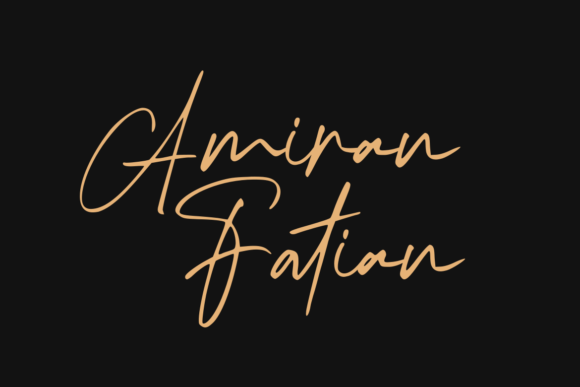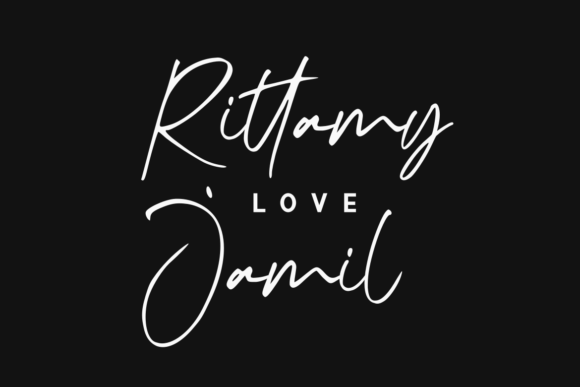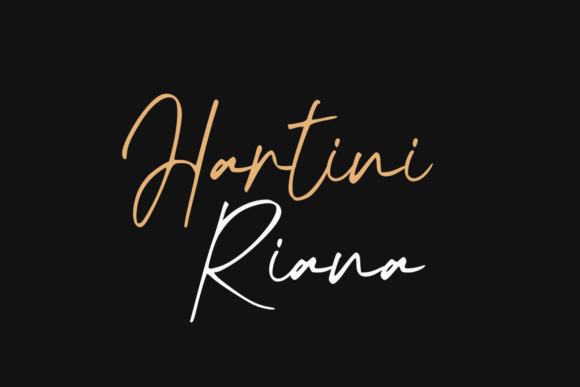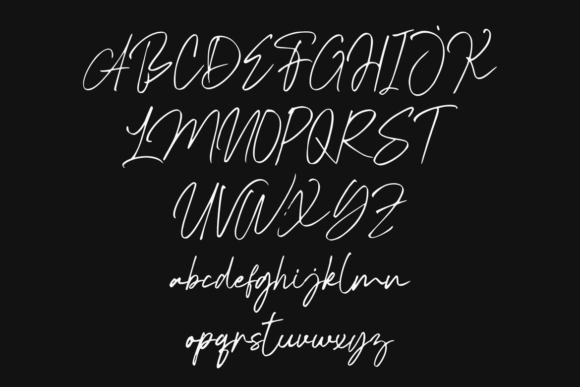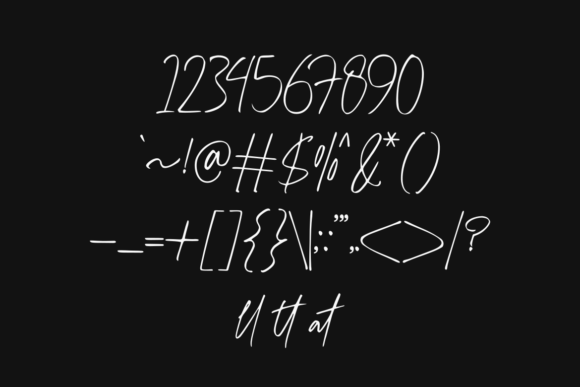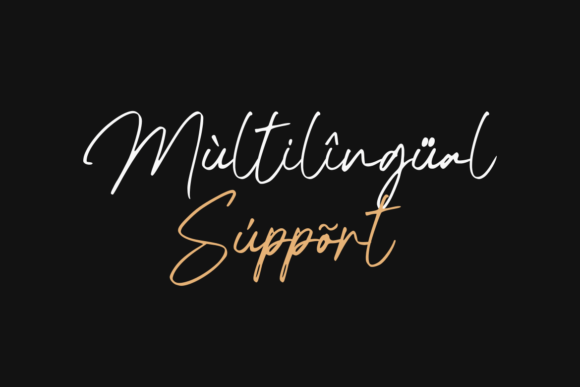
Belloan Signature Font: Elevate Your Designs with Elegance and Sophistication
In the world of typography, a signature font can make all the difference in creating a lasting impression. For designers and crafters looking to add a touch of luxury and refinement to their projects, Belloan Signature is an exceptional choice. This modern and stylish signature script font is designed to capture the essence of elegance and sophistication, making it perfect for branding, logos, and fashion-related designs.
The Essence of Belloan Signature
Belloan Signature boasts fluid and organic letterforms that exude a sense of beauty and grace. Each letter is carefully crafted to create a harmonious flow, making it ideal for designs that require a high level of sophistication. The font’s unique characteristics make it stand out from other signature fonts, offering a distinctive look that can elevate any project.
Key Features of Belloan Signature
- Modern and Stylish: Belloan Signature features a contemporary design that is both stylish and elegant.
- Fluid and Organic Letterforms: The font’s fluid and organic letterforms create a harmonious flow, making it perfect for designs that require a high level of sophistication.
- Luxury and Refined: Belloan Signature adds a touch of luxury and refinement to any project, making it truly stand out.
- Perfect for Branding and Logos: The font’s unique characteristics make it ideal for branding, logos, and fashion-related designs.
Uses of Belloan Signature
Belloan Signature is a versatile font that can be used in a variety of design projects. Here are some of the ways you can use this elegant font:
- Branding: Create a lasting impression with Belloan Signature by using it for your brand’s identity.
- Logos: Design a luxurious logo for your business or personal brand with this elegant font.
- Fashion-related Designs: Belloan Signature is perfect for fashion-related designs, such as fashion blogs, magazines, and advertisements.
- Stationery: Add a touch of elegance to your stationery, such as business cards, letterheads, and envelopes.
Why Choose Belloan Signature?
With so many fonts available, why choose Belloan Signature? Here are some reasons why this font stands out:
- Unique Design: Belloan Signature features a unique design that is both modern and stylish.
- Elegant and Sophisticated: The font’s fluid and organic letterforms create an elegant and sophisticated look.
- High-quality: Belloan Signature is a high-quality font that is designed to deliver exceptional results.
Tips for Using Belloan Signature
Here are some tips for using Belloan Signature effectively:
- Use it Sparingly: Use Belloan Signature sparingly to create a lasting impression.
- Pair it with Other Fonts: Pair Belloan Signature with other fonts to create a unique and interesting look.
Belloan Signature is an exceptional font that can elevate any design project. With its modern and stylish design, fluid and organic letterforms, and luxurious feel, it’s perfect for branding, logos, and fashion-related designs. Whether you’re a designer or crafter, Belloan Signature is an excellent choice for adding a touch of elegance and sophistication to your work.